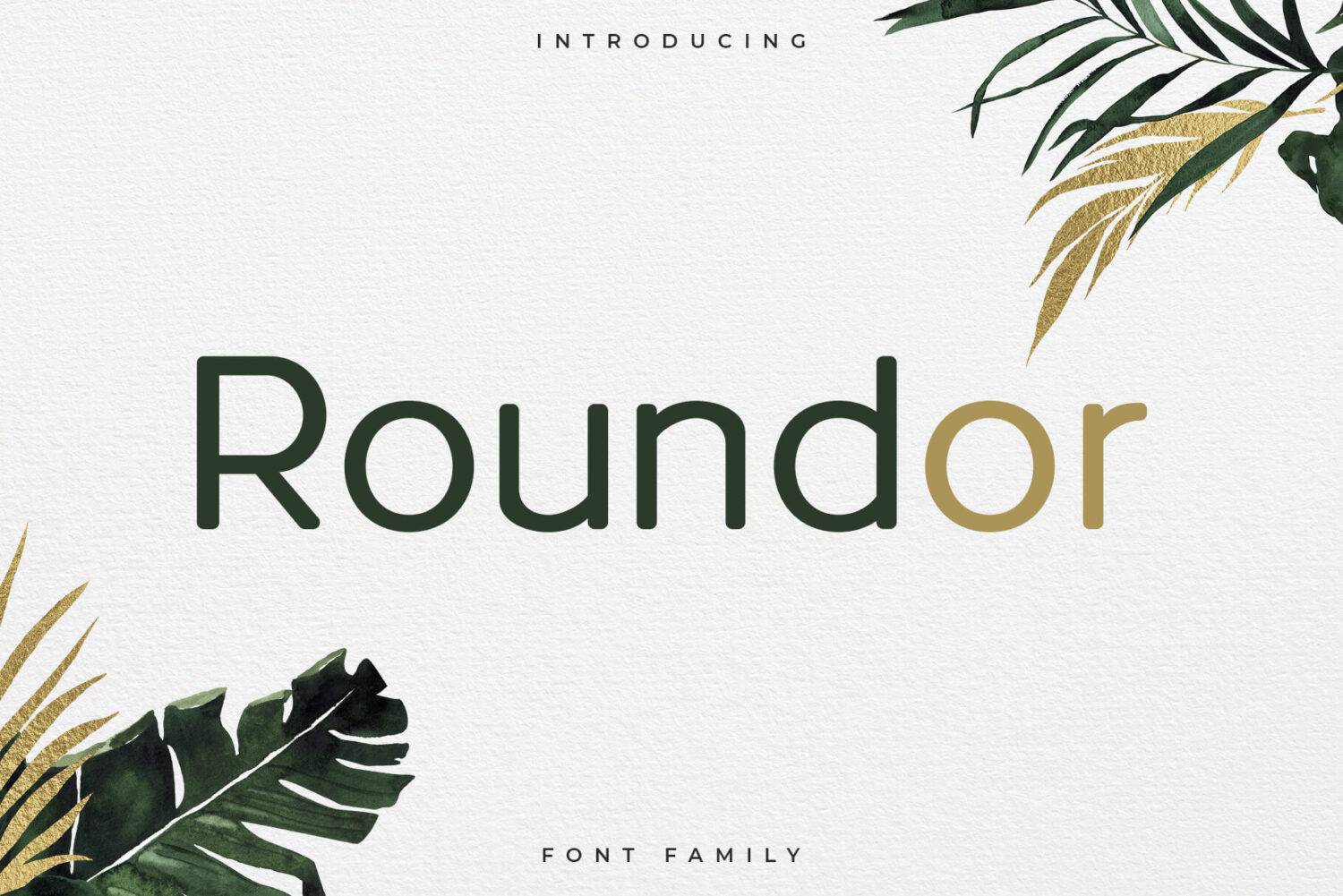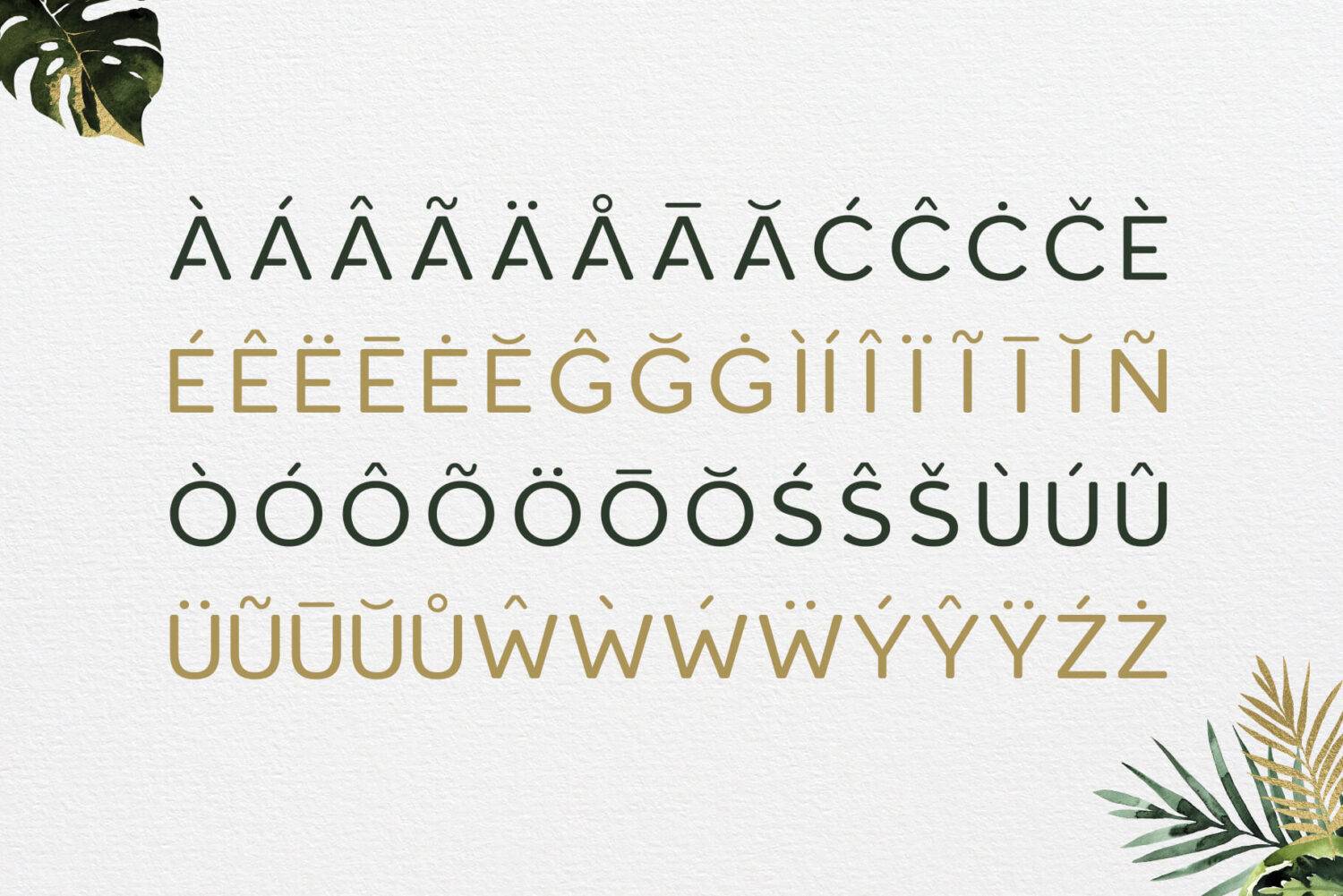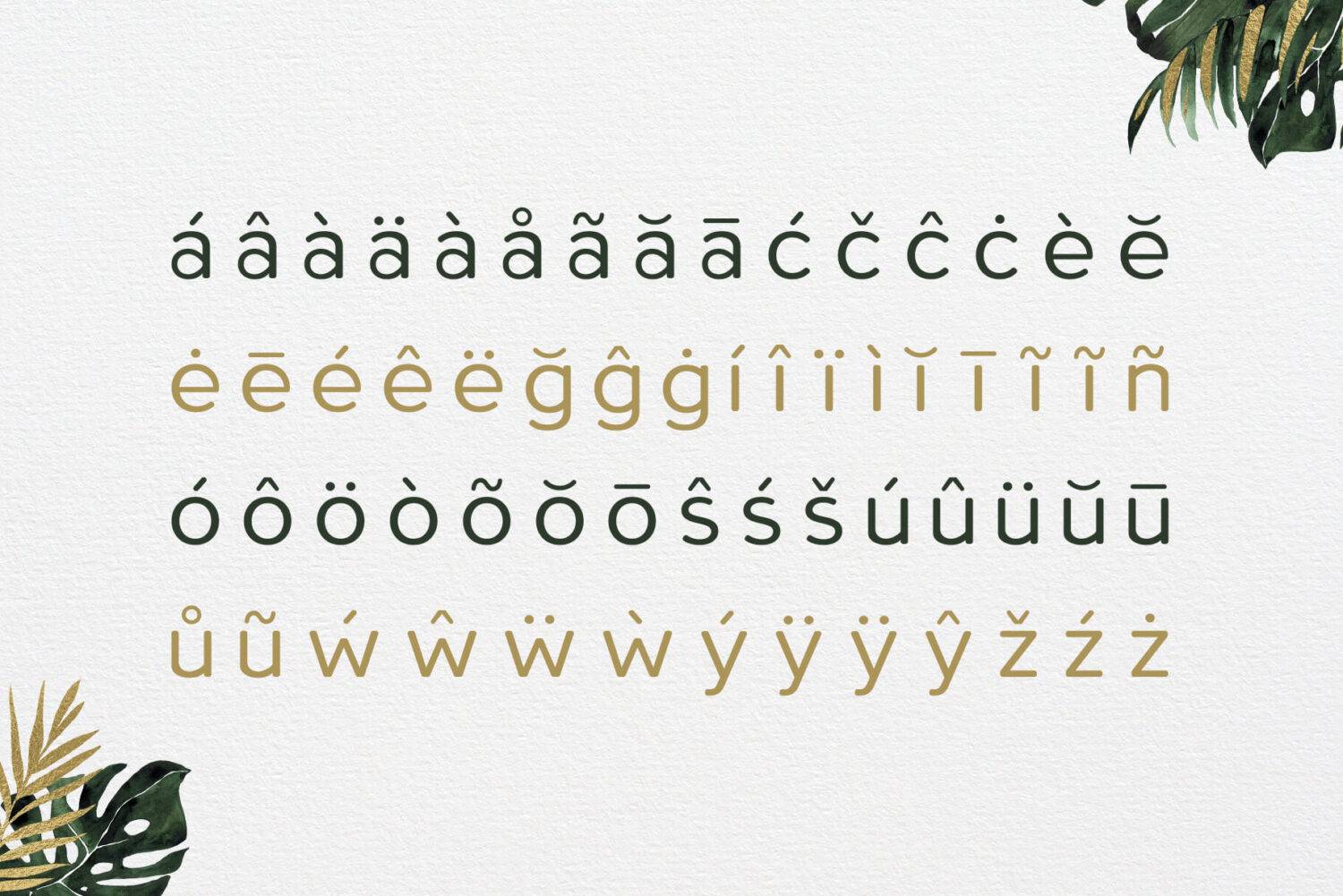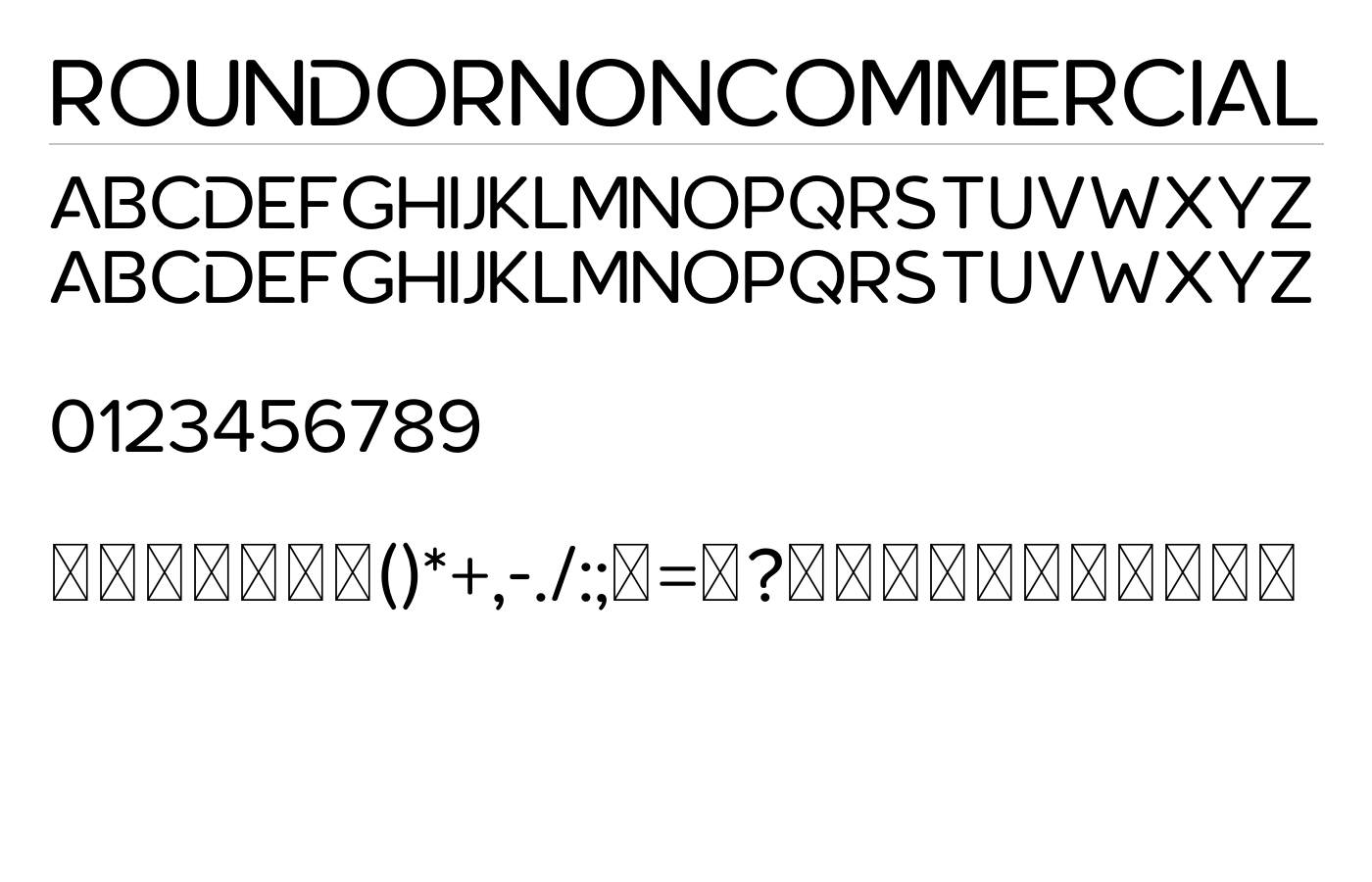
Roundor is a clean, modern sans serif font characterized by its geometric shapes and rounded terminals, giving it a friendly yet contemporary feel. With a regular weight and open spacing, it maintains good readability while its unique letterforms add a subtle, playful touch, making it ideal for branding, logos, and headlines looking to convey approachability and modernity. This font works well in digital and print designs where clarity and a welcoming tone are essential.
Roundor Font Family
About Roundor Font Family